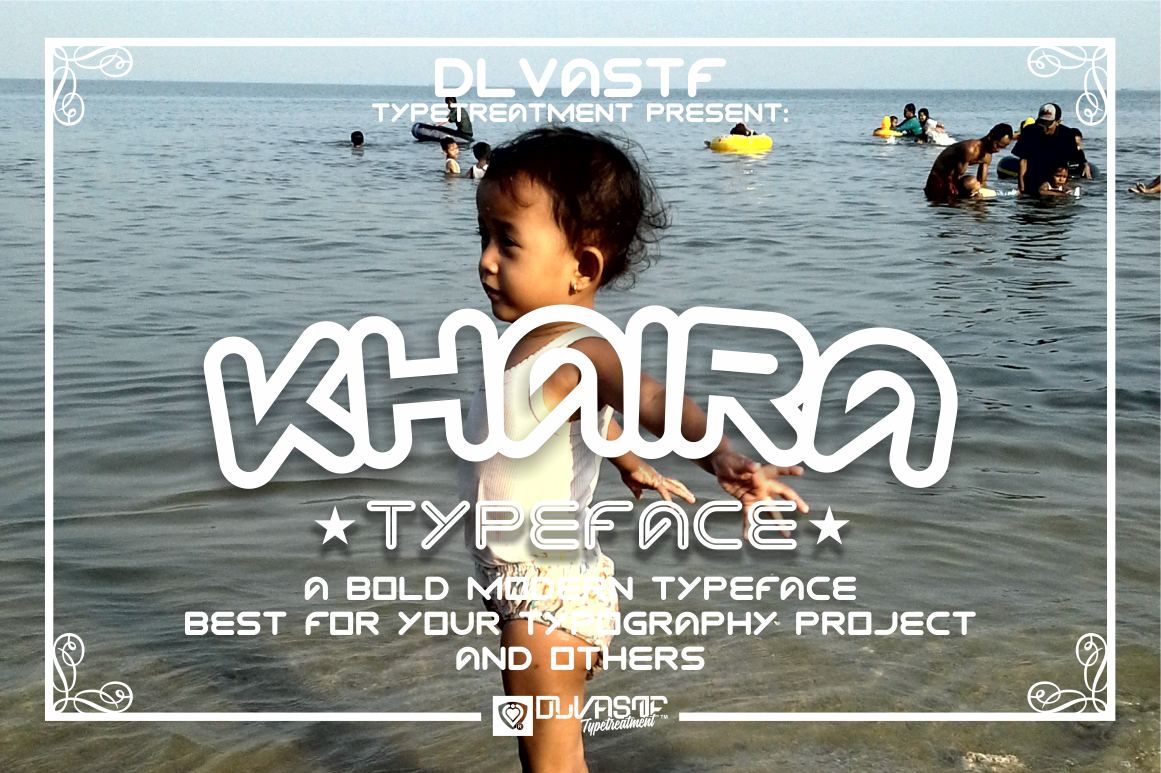
KHAIRA Typeface
KHAIRA is A Bold modern rounded typefaces. Best for your typography project with an modern handlettering style. This really great font for your LOGOS, TYPOGRAPHY, Headline, or Logotype and t shirt/apparel, Brand, company, label, clothing company and others!